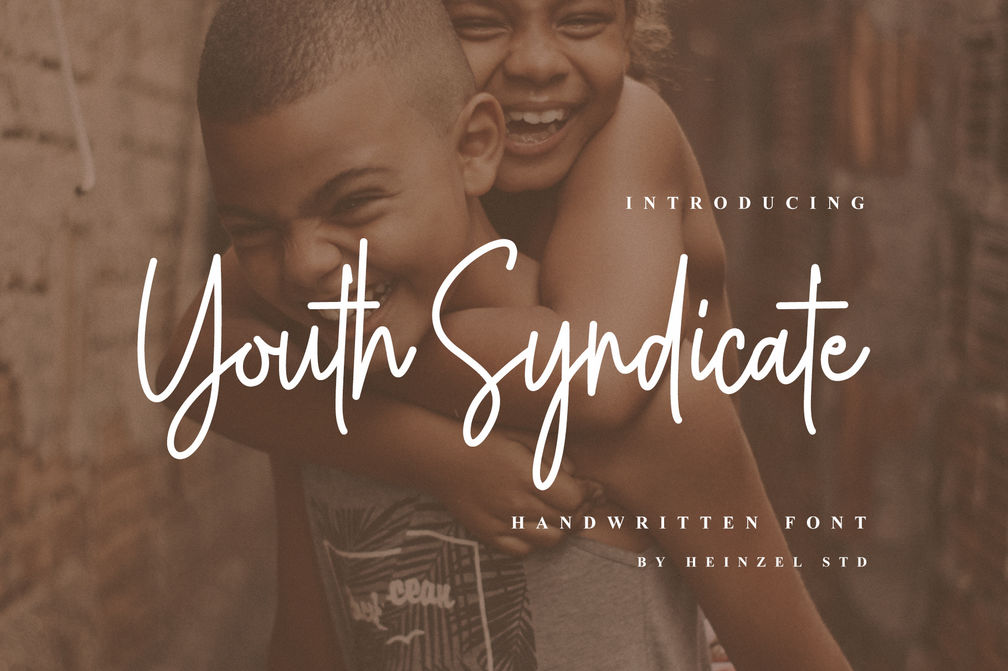
Youth Syndicate Handwritten Font
Youth Syndicate is a unique and stylish handwritten font, described by an elegant yet asymmetrical touch, perfect for your favorite projects. It looks stunning on wedding invitations, thank you cards, quotes, greeting cards, logos, business cards and every other design which needs a handwritten touch. Fall in love with its incredibly distinct and timeless style and use it to create spectacular designs!